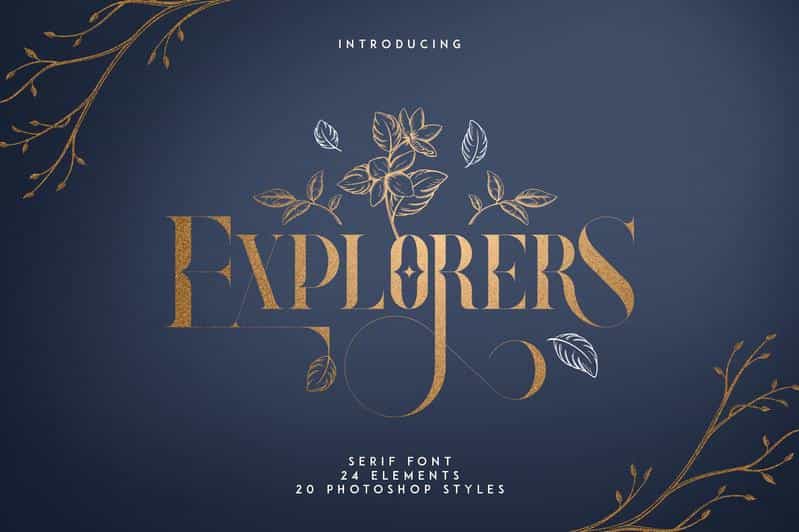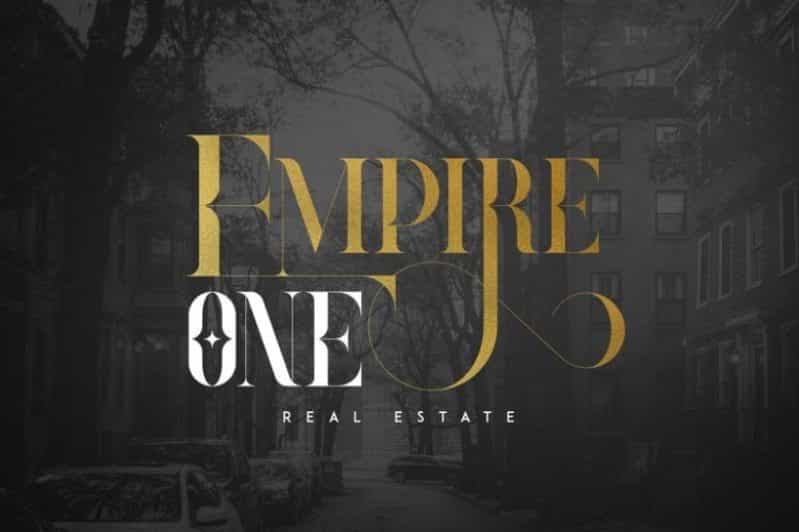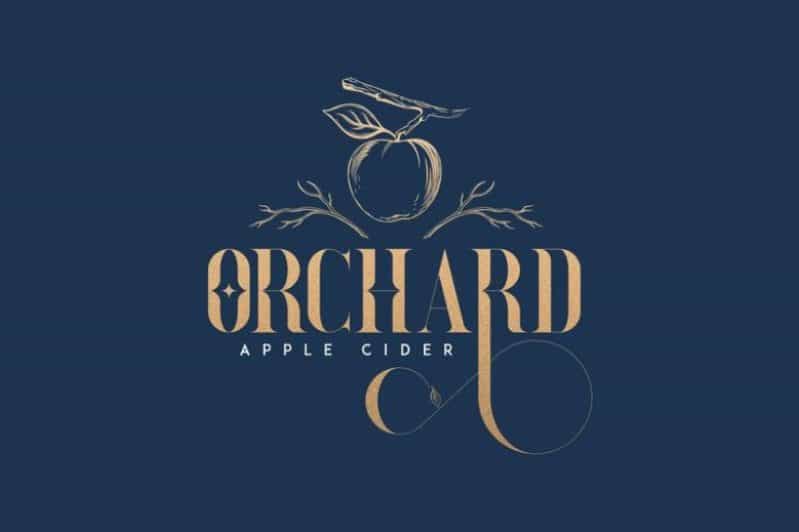
Explorers is a highly developed font that has many alternatives for the glyphs, ligatures, elements, photoshop styles and is also multilingual. It is a very flexible font that suits for large and small scales of text very well. Explorers would be a great option for branding projects, home-ware designs, product packaging, magazine headers – or even an elegant text layer over any photograph.